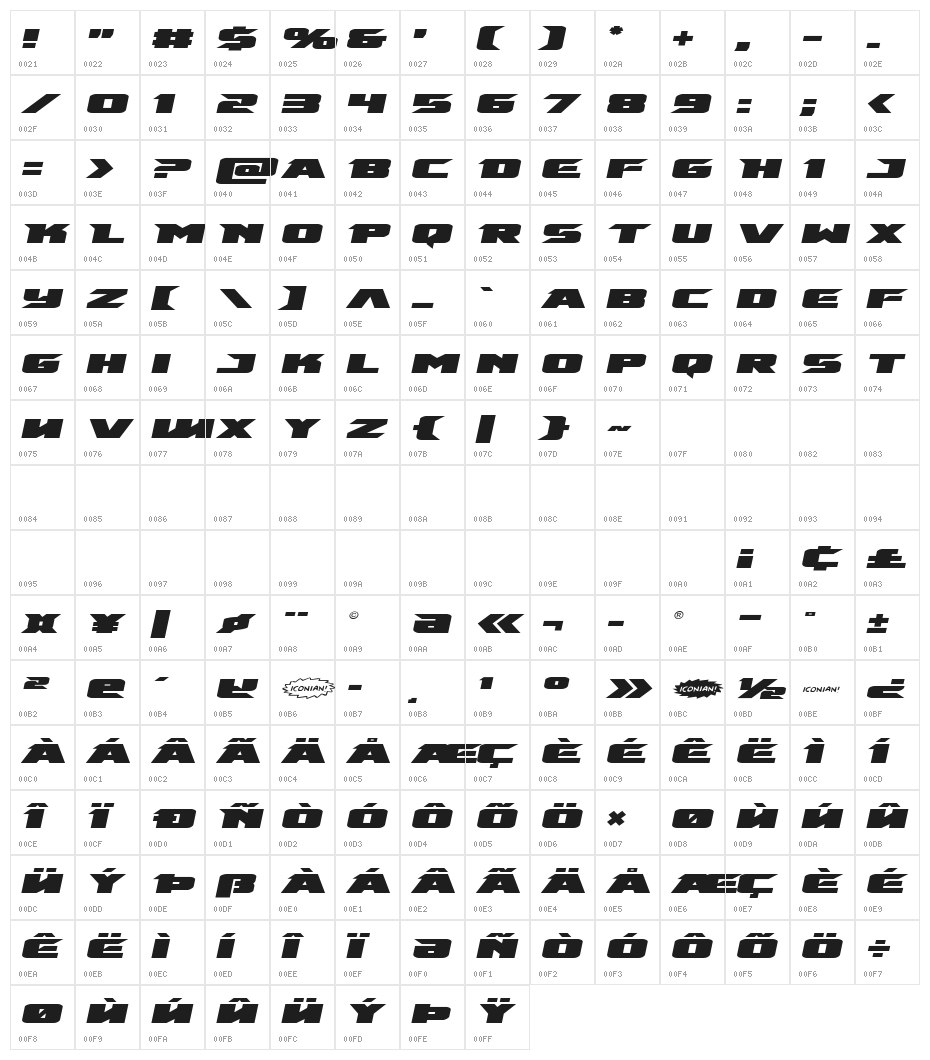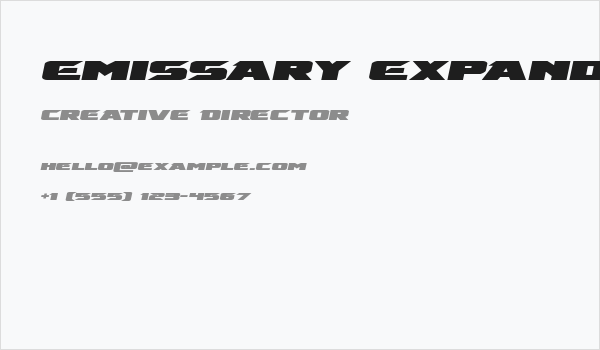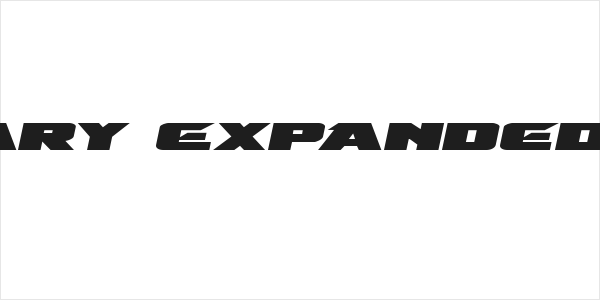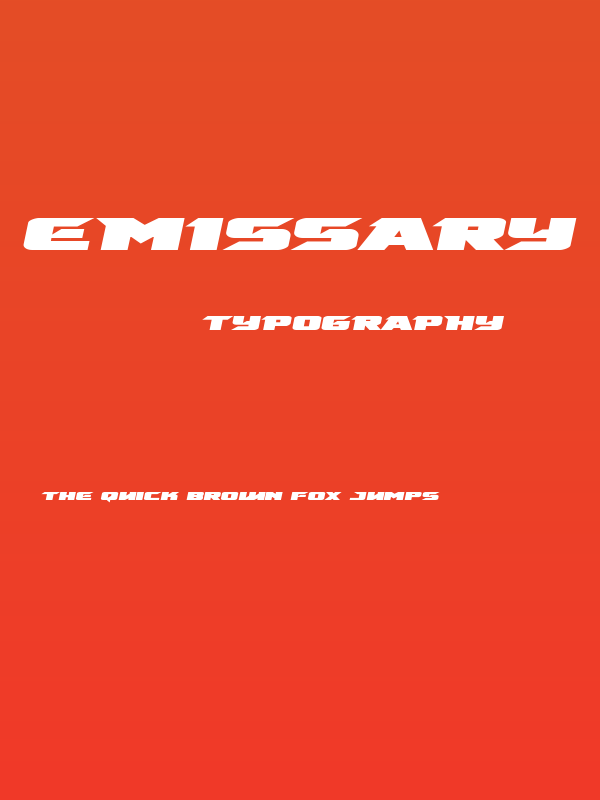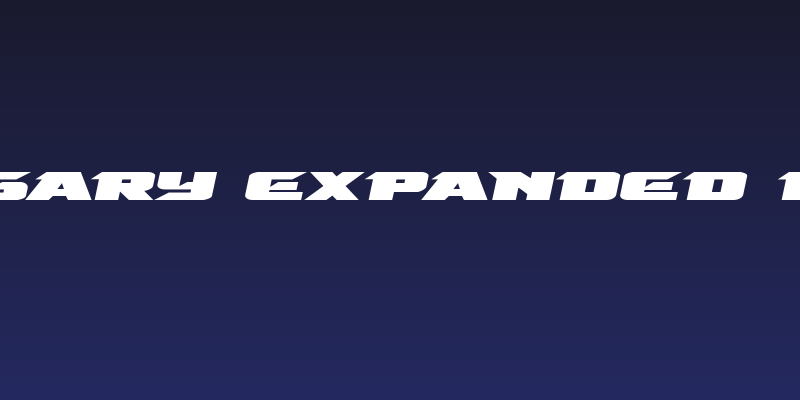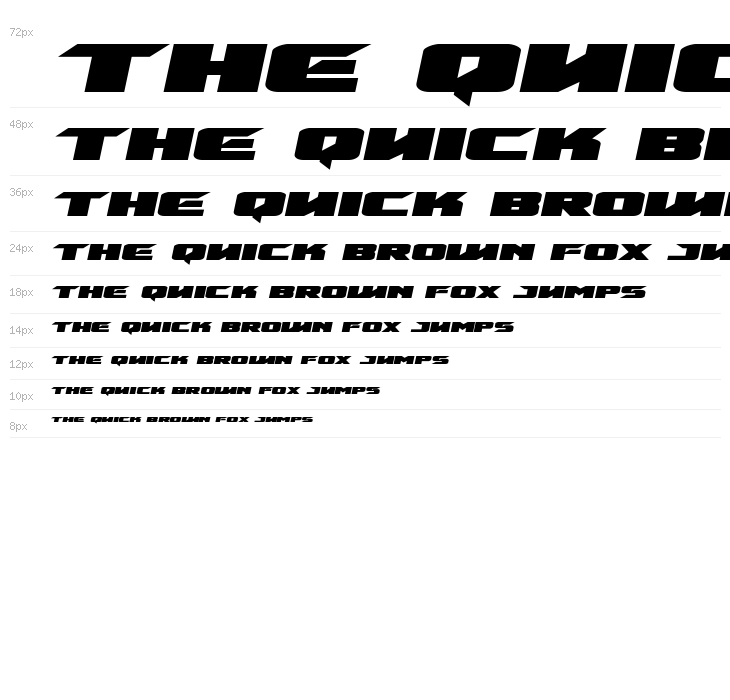
Emissary Expanded Italic Font
Emissary Expanded Italic Description
This font features a bold, dynamic style with a futuristic and aggressive appearance. The characters are sharply angled, giving a sense of motion and speed. The italic slant enhances this effect, making it ideal for designs that require a sense of urgency or modernity. The expanded width of the characters provides a strong presence, making it suitable for impactful headlines or branding. The high contrast between thick and thin strokes adds to its striking visual appeal, ensuring that it stands out in any design context.
| Proposed Projects | Ideal for sports branding, video game titles, movie posters, and tech-related advertising. |